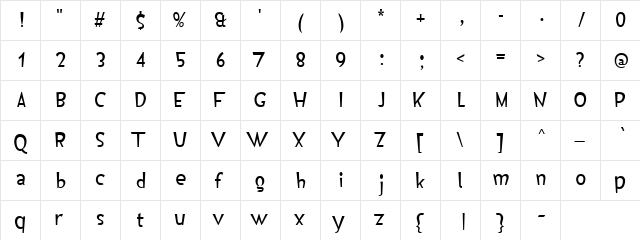
Torch Regular Font Preview
Torch Regular
Design Context for Torch Typeface
Torch is a composed and adaptable typeface that performs quietly and consistently across a wide range of design contexts.